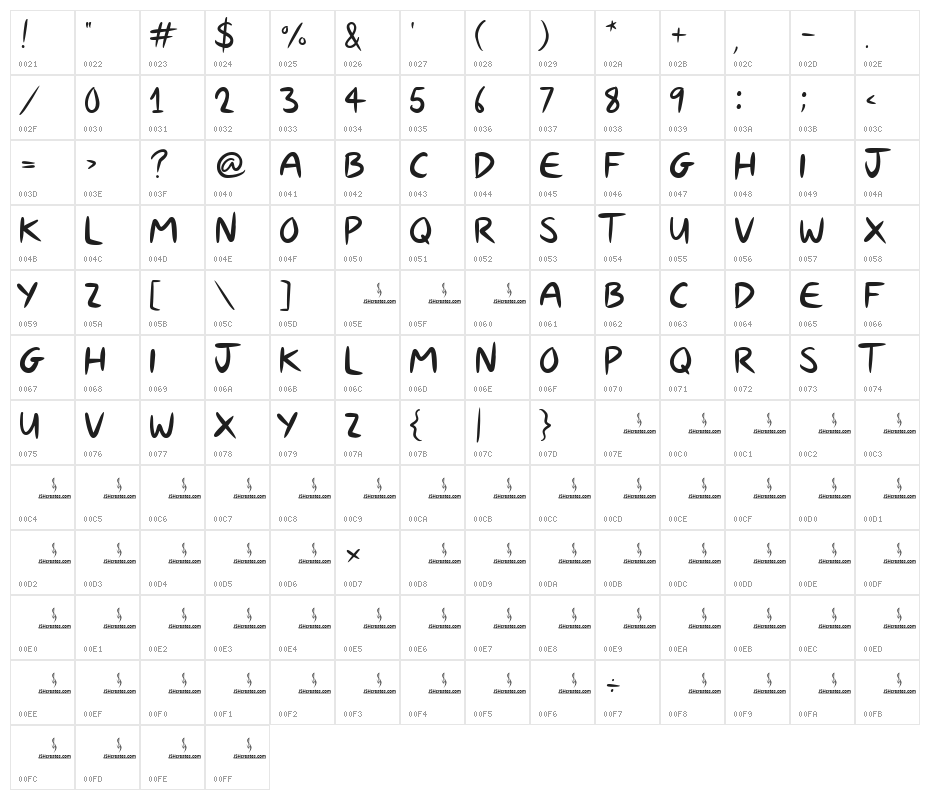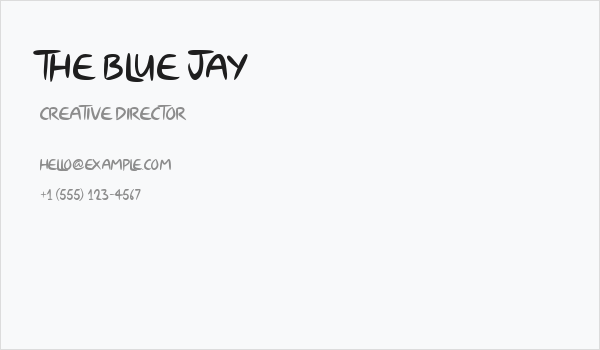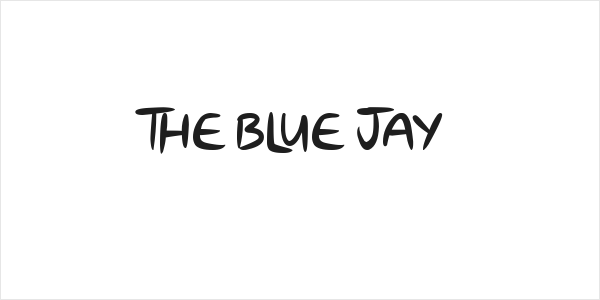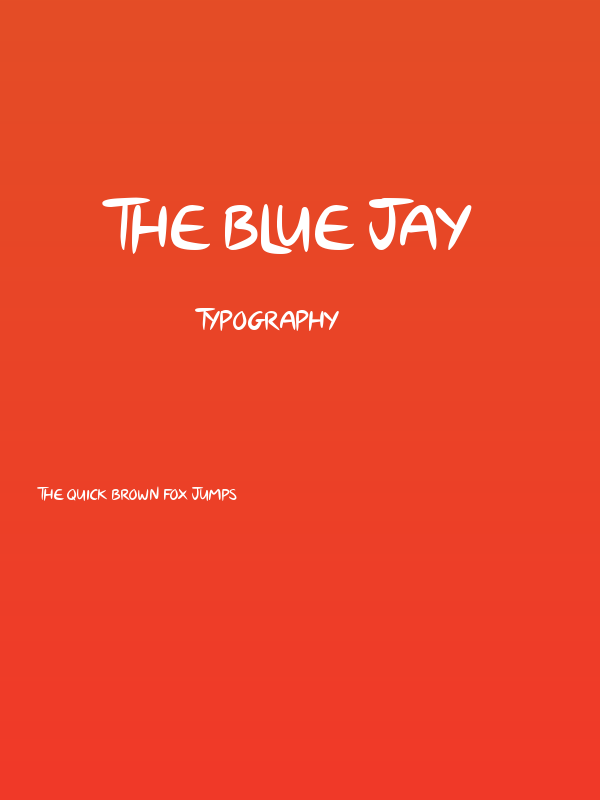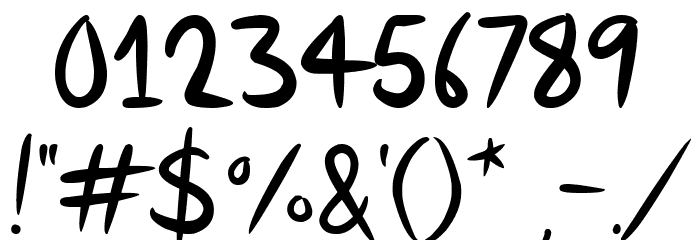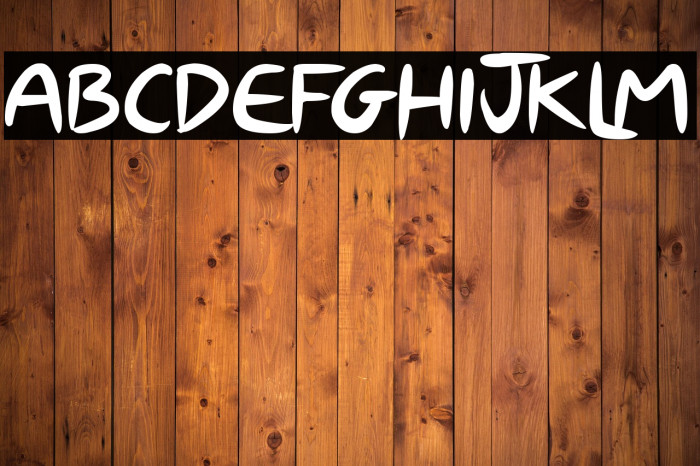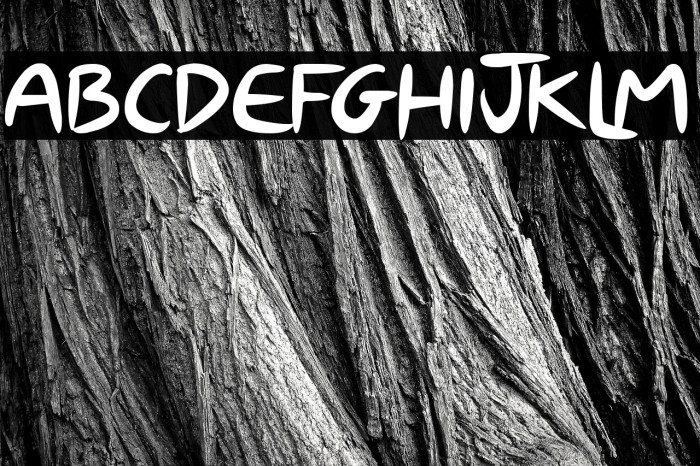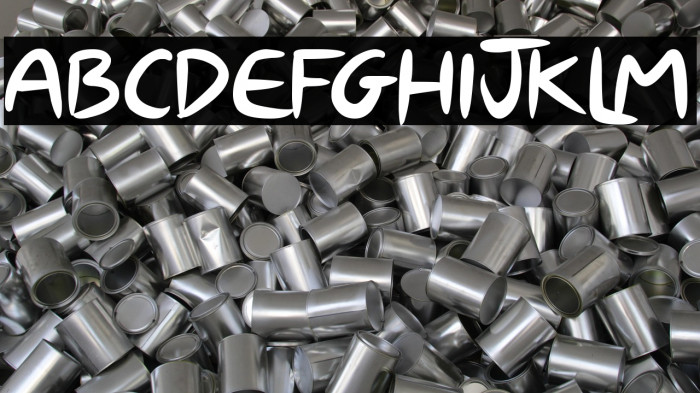
The Blue Jay Font
The Blue Jay Description
This font features a playful and energetic handwritten style, characterized by its bold and slightly irregular strokes. The letters have a casual, informal appearance, with rounded edges and a dynamic flow that mimics natural handwriting. The uppercase and lowercase letters maintain a consistent style, while the numerals and special characters blend seamlessly with the overall design. The font's lively and approachable aesthetic makes it suitable for projects that require a personal touch or a sense of fun.
| Use Case | Logos, Headlines, Informal Text |
| Proposed Projects | Ideal for greeting cards, children's books, playful branding, and social media graphics. |